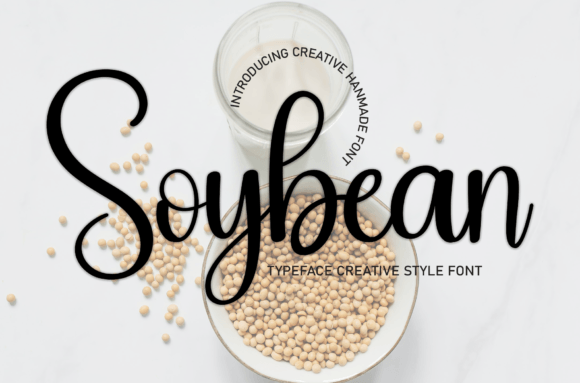
Dive headfirst into the world of Soybean Font, a delightful script font family that oozes charm and personality. Designed by the talented William Jhhordy, Soybean Font is the ultimate choice for designers and creatives seeking a font that sparks joy and captures hearts.
Soybean Font is a captivating dance of curves and lines, reminiscent of a handwritten note from a dear friend. Its playful and inviting presence makes it the perfect font for adding a touch of whimsy and warmth to your designs. Imagine the delight of your audience as they encounter your creations adorned with the Soybean Font's charismatic charm.
With Soybean Font, you'll embark on a creative journey where imagination knows no bounds. Let your designs blossom with the font's inherent playfulness, crafting logos, branding materials, posters, and social media graphics that leave a lasting impression. The Soybean Font's versatility shines through, effortlessly elevating your projects to new heights.
Whether you're designing for a wedding invitation, a playful children's book, or a vibrant marketing campaign, Soybean Font is your trusty companion. Its ability to evoke emotions and create connections is unparalleled, making it the perfect choice for capturing the attention of your target audience.
Join the creative revolution and let Soybean Font ignite your imagination. Experience the magic of its enchanting characters and immerse yourself in a world where designs come alive with personality and charm. Embrace the Soybean Font experience and see your creations flourish with its undeniable allure.